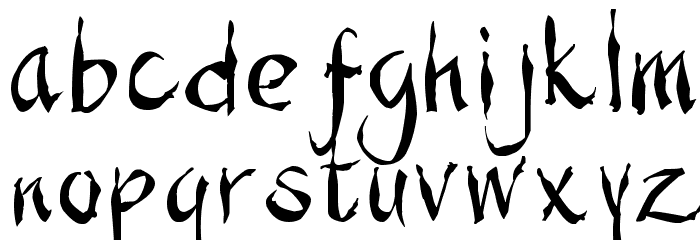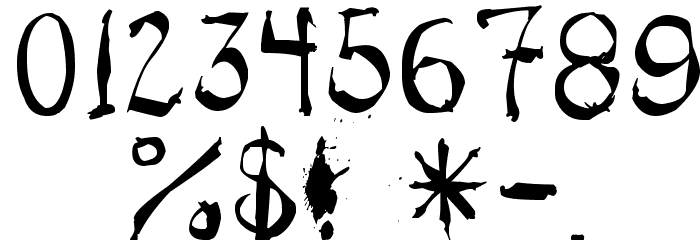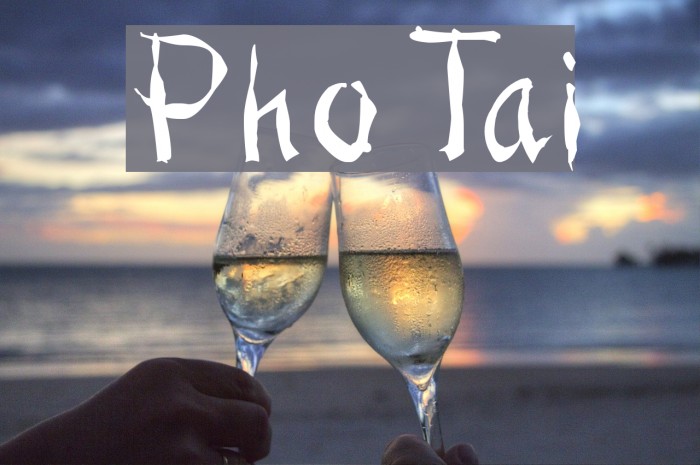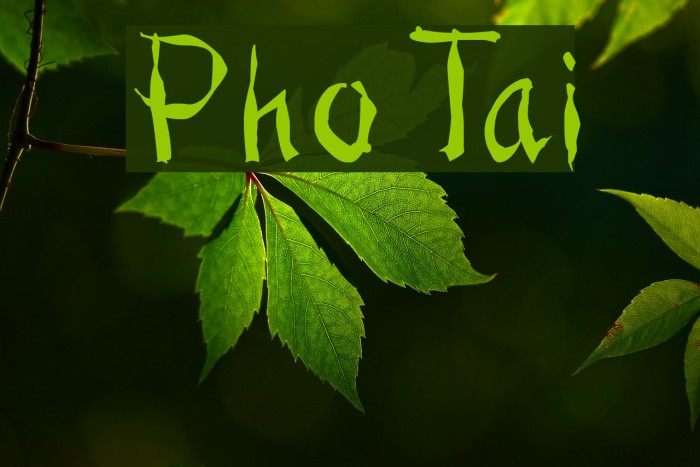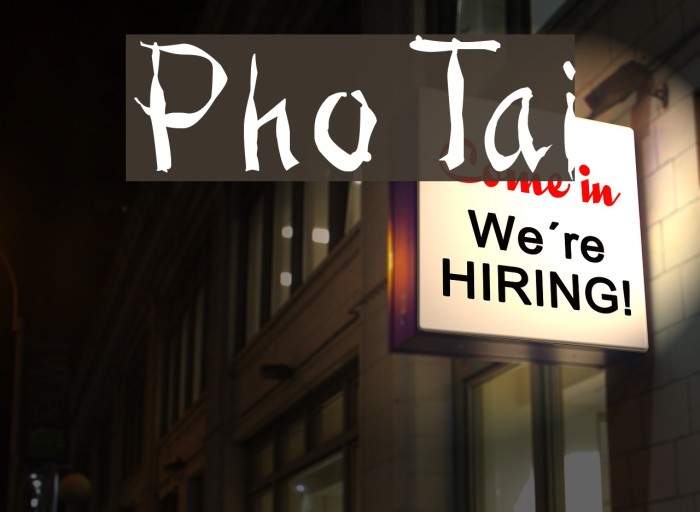
Pho Tai Font
This font features a unique, hand-drawn style with an artistic flair, reminiscent of brush strokes or ink splatters. The characters exhibit irregular edges and varying thickness, giving them a dynamic and expressive appearance. The uppercase letters are bold and striking, while the lowercase letters maintain a consistent style with a slightly more delicate touch. Numbers and special characters follow the same aesthetic, adding to the font's cohesive look. The overall design is both edgy and creative, making it suitable for projects that require a distinctive and unconventional typeface.
A hand-drawn, brush-style font with irregular edges and dynamic strokes.
- Proposed Projects: Ideal for artistic projects, album covers, posters, and branding that seeks a creative and edgy look.
- Overall Style: Artistic, Edgy
- Use Case: Headlines, Posters, Branding